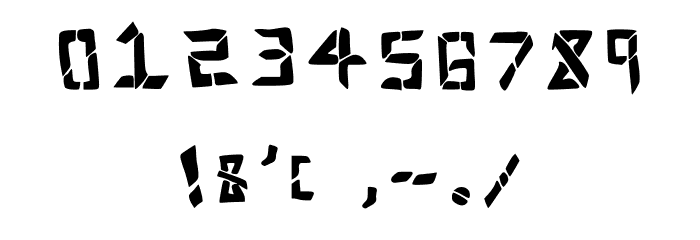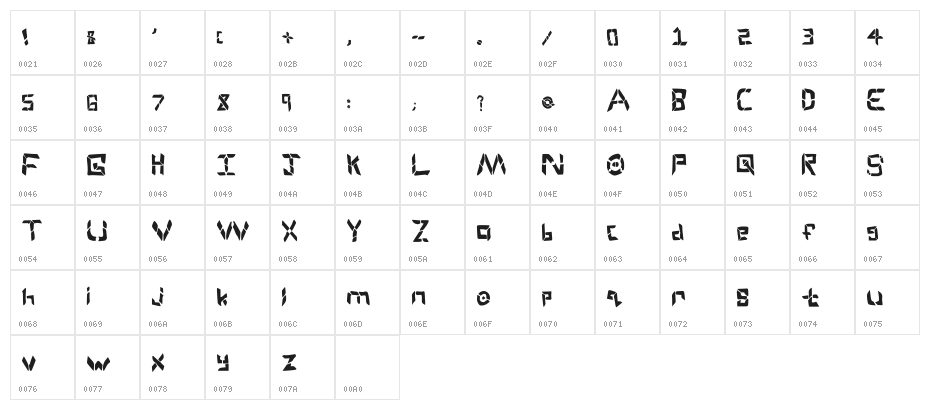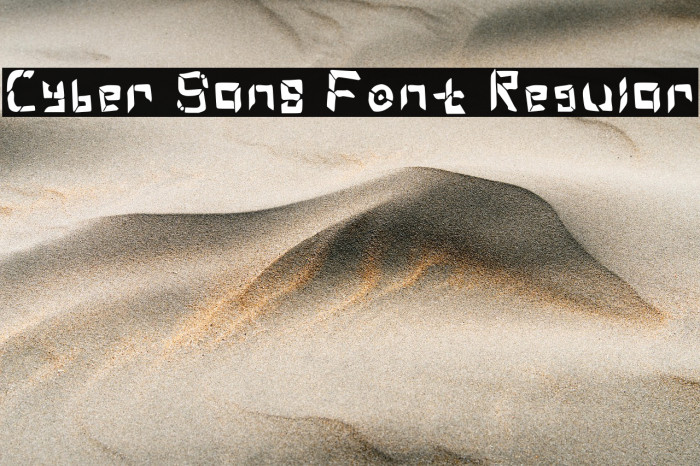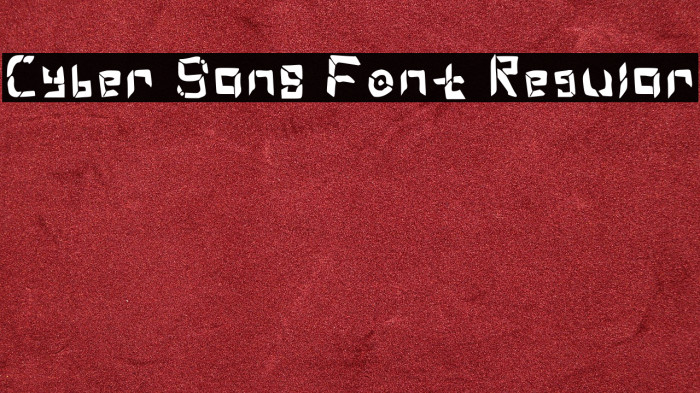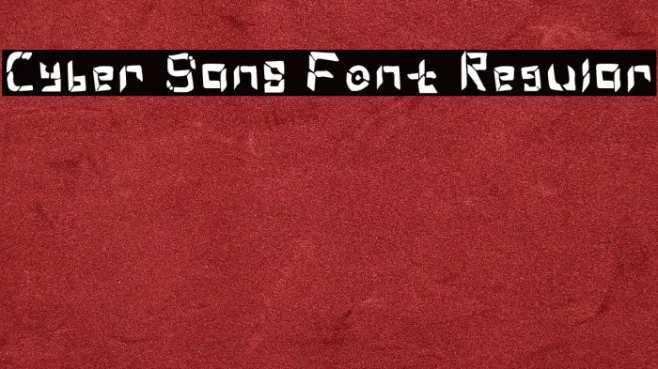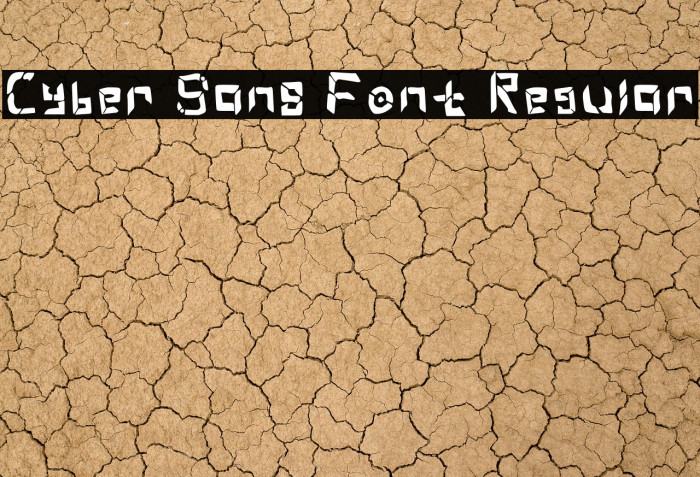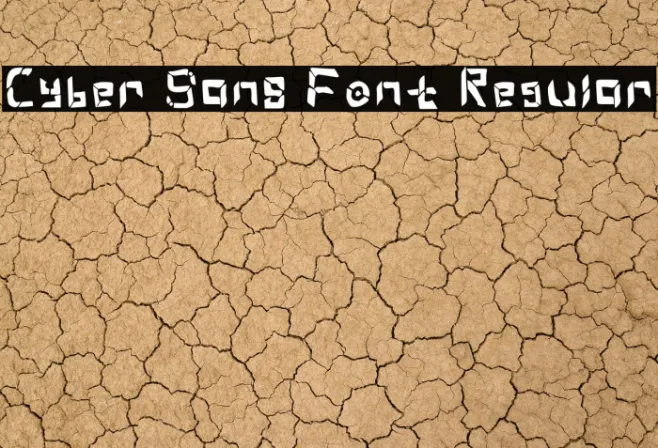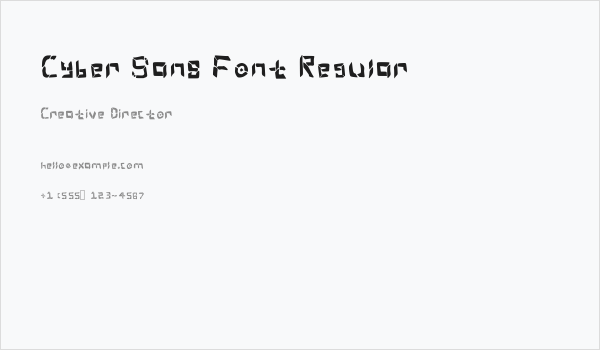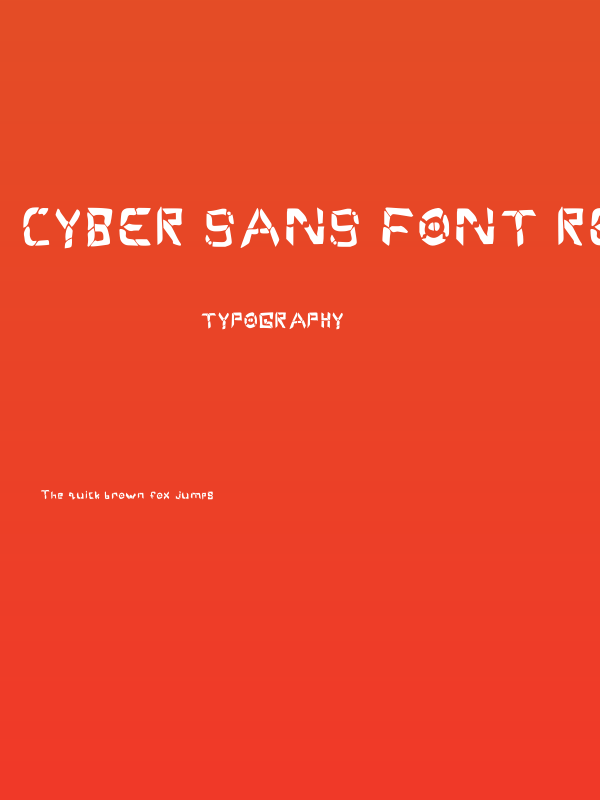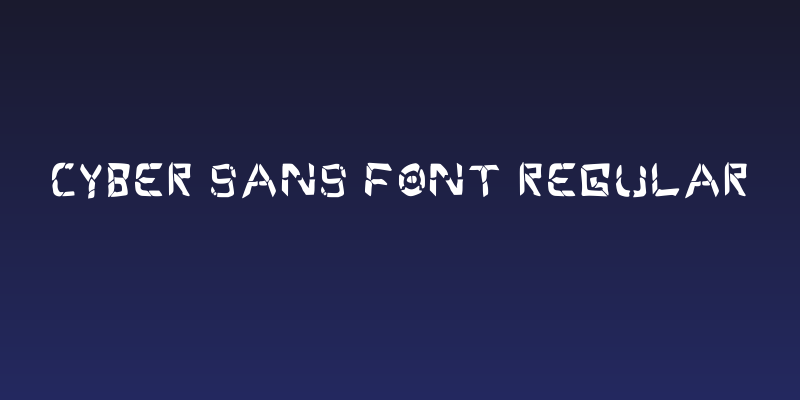
Cyber Sans Font Regular Font
Cyber Sans Font Regular Description
This font features a futuristic and edgy design, characterized by its angular and fragmented letterforms. The characters are constructed with sharp, geometric shapes that give a sense of movement and dynamism. The uppercase and lowercase letters maintain a consistent style, with unique variations that add to its distinct appearance. Numbers and special characters are designed to match the overall aesthetic, making it suitable for creative and modern projects. The font's bold presence and unconventional style make it ideal for attention-grabbing headlines and digital media.
| Use Case | Headlines, Logos, Digital media |
| Proposed Projects | Ideal for sci-fi themed designs, tech-related branding, video game graphics, and digital media. |